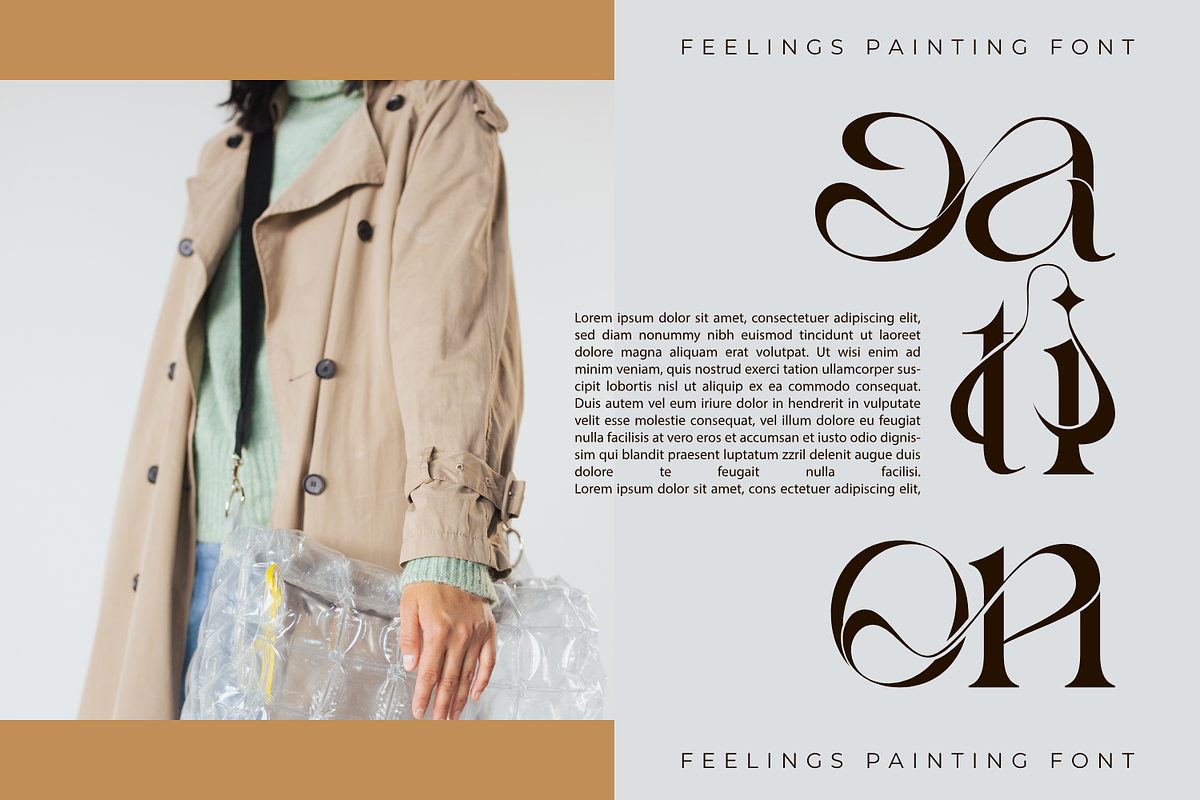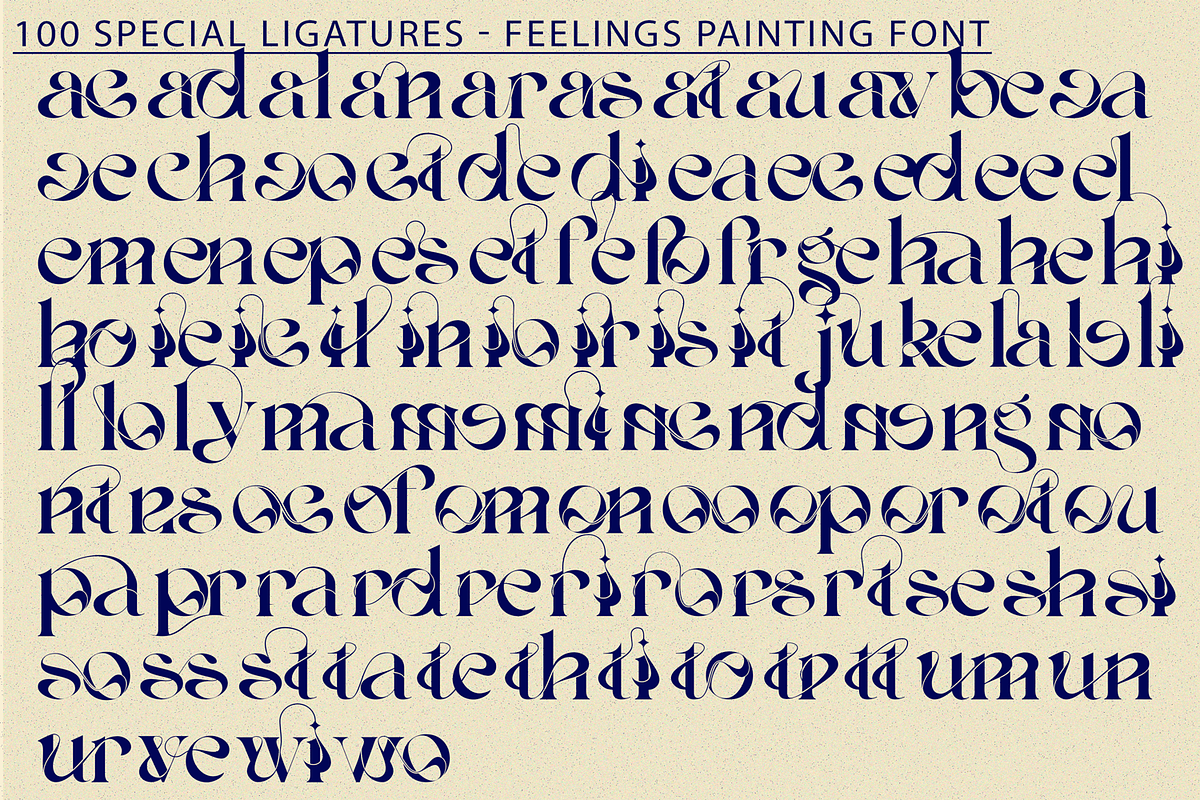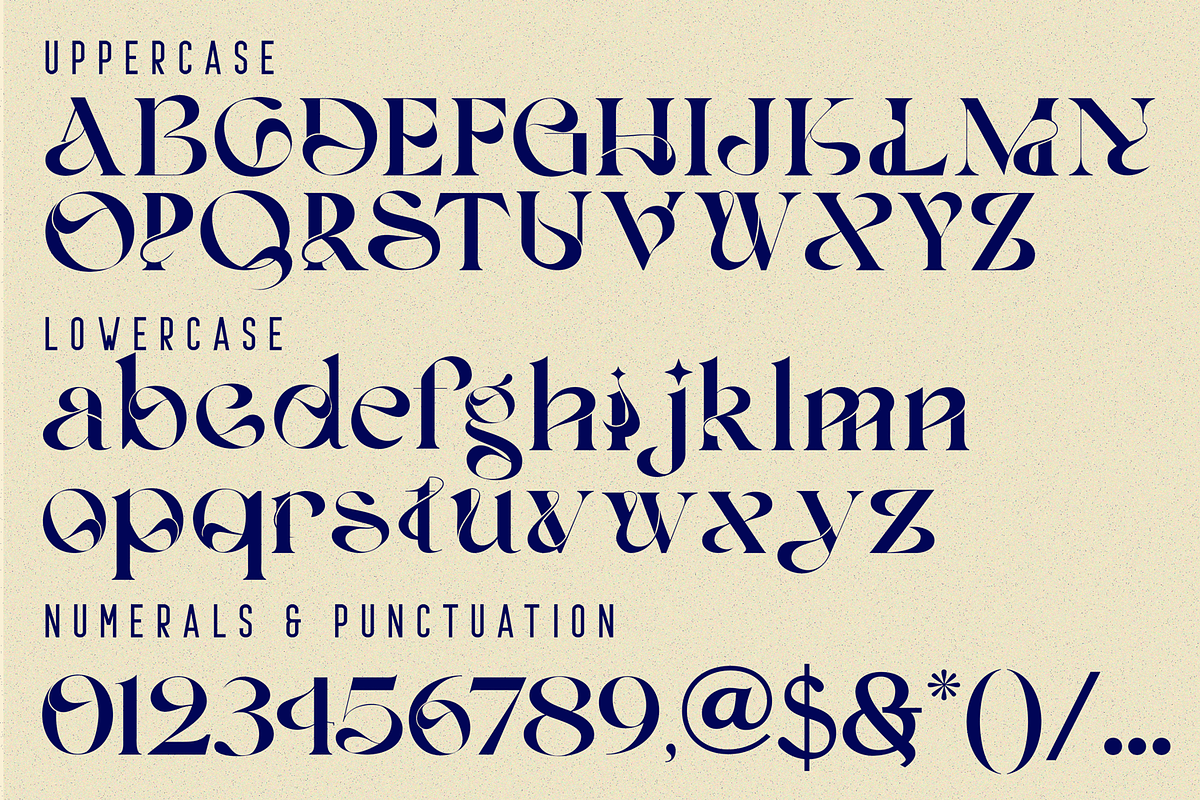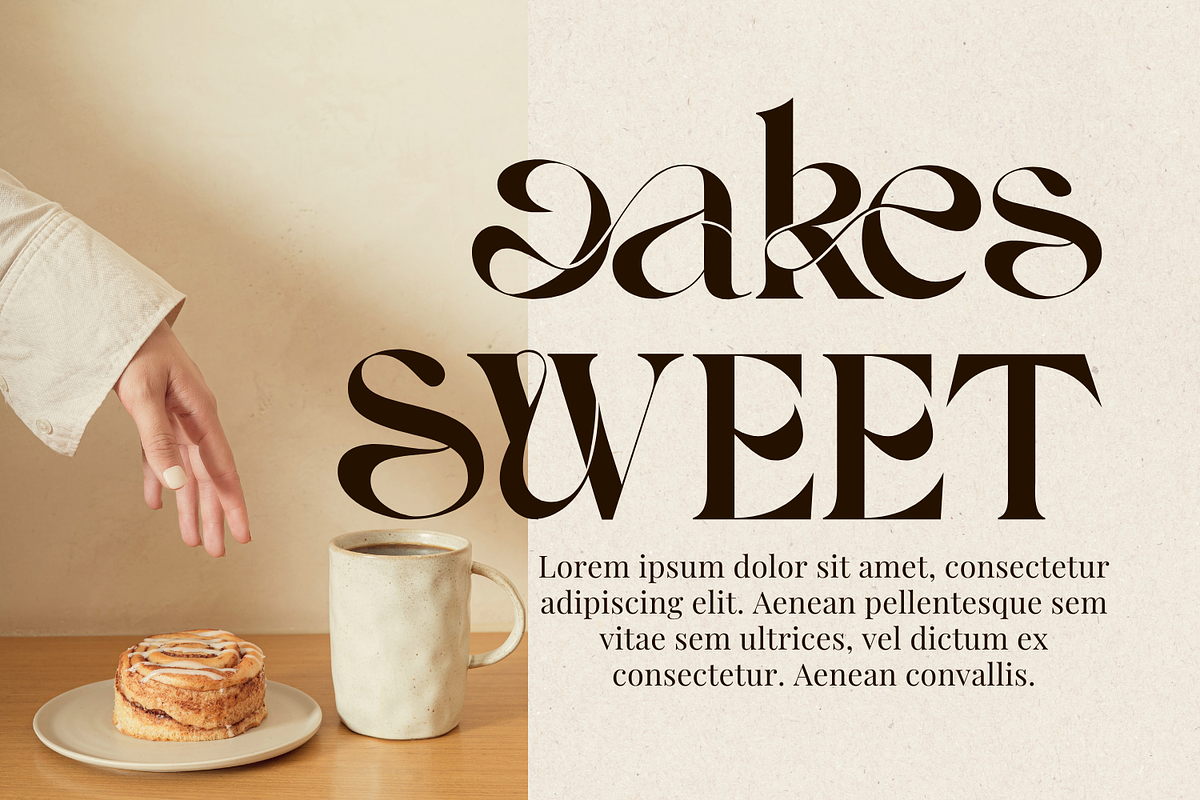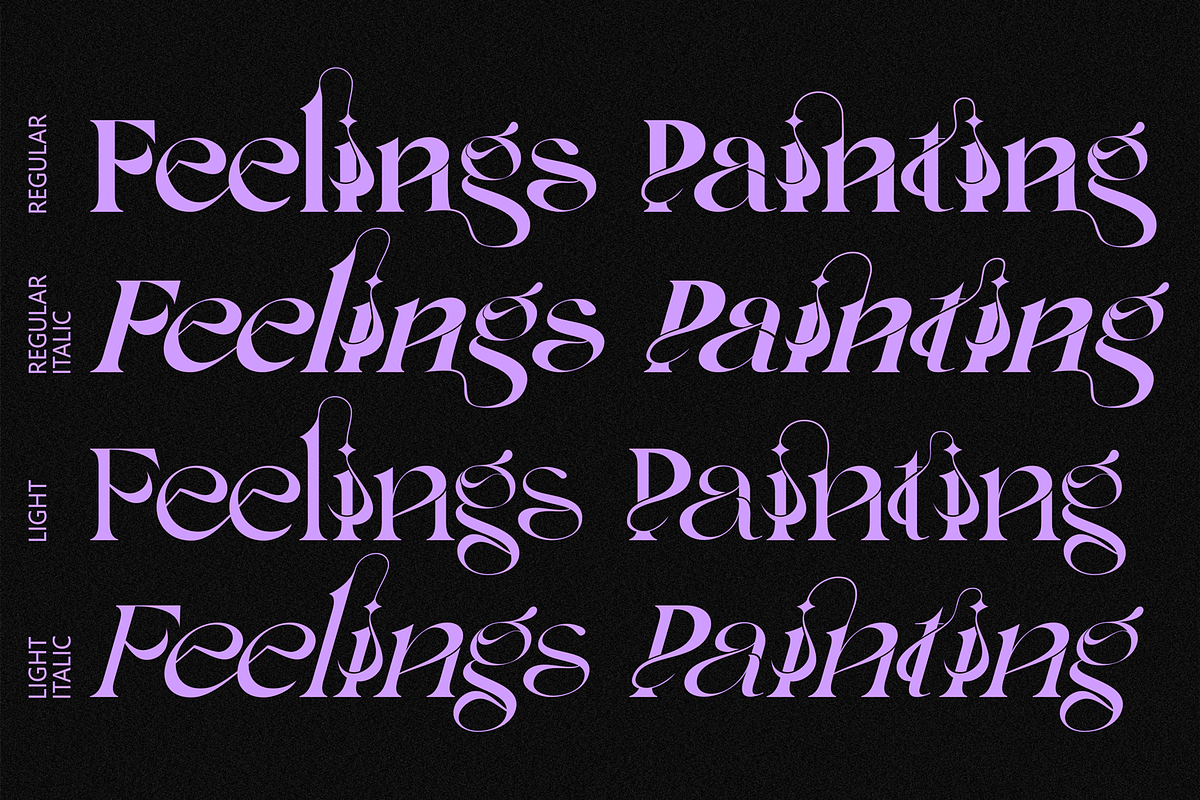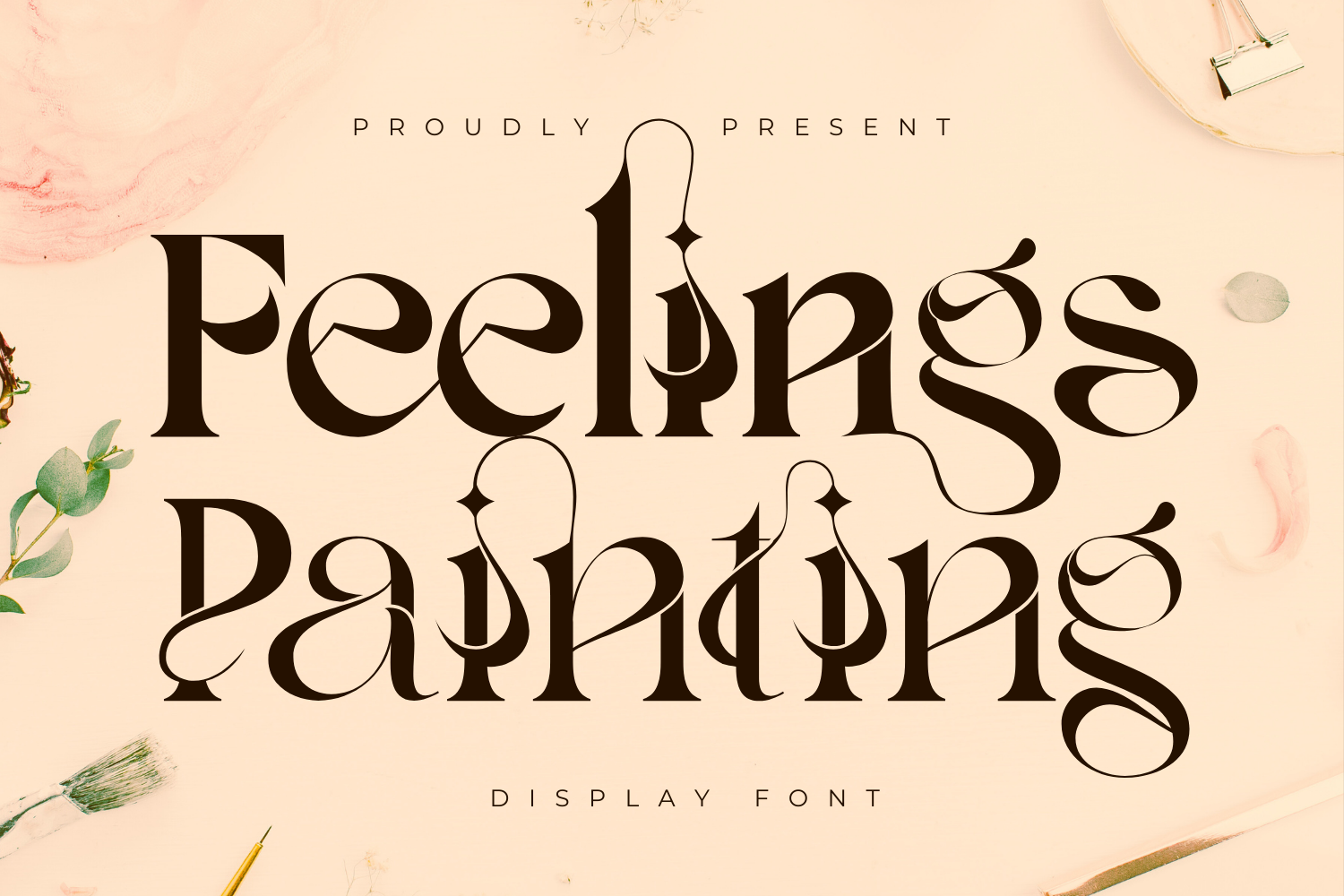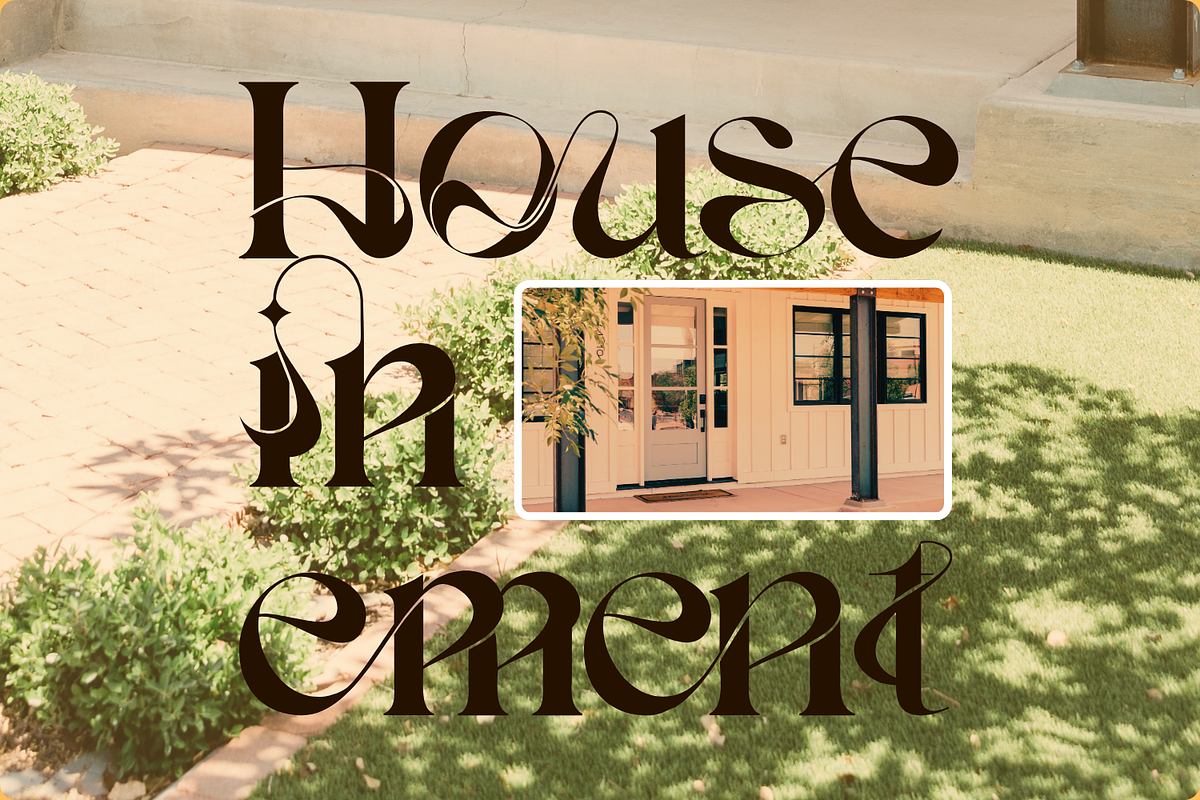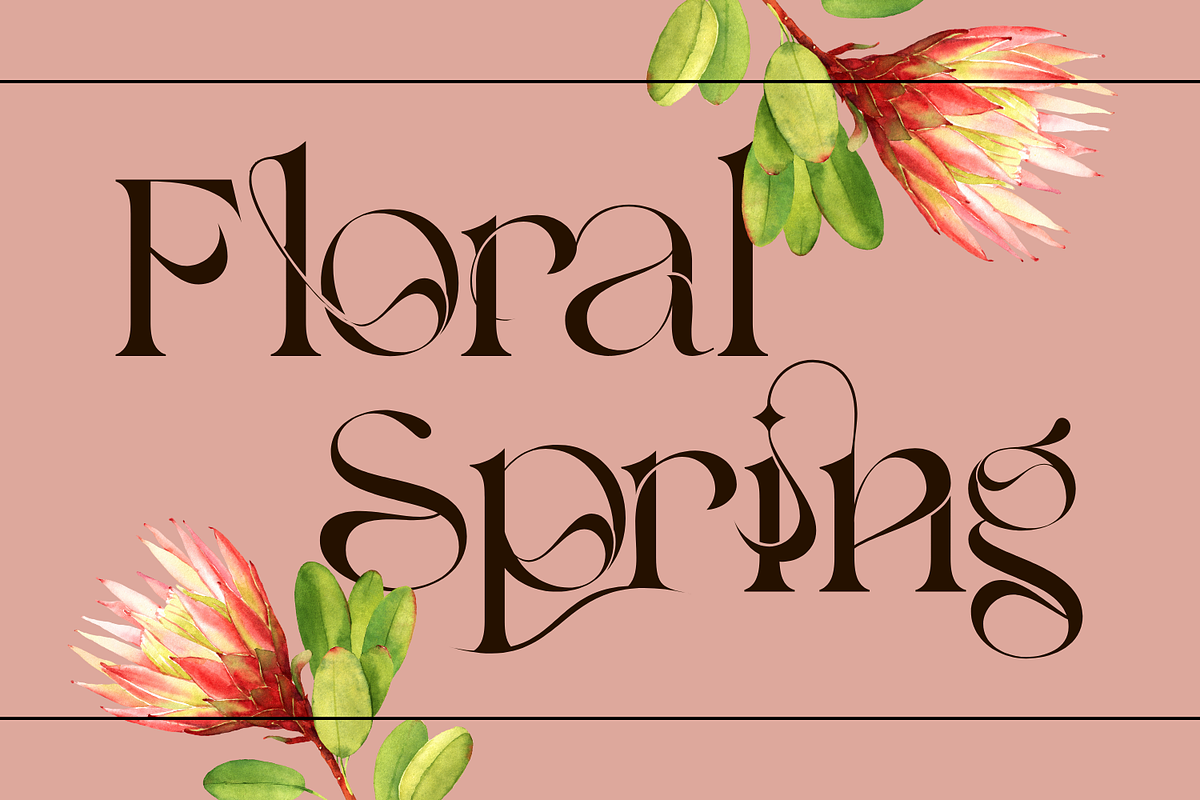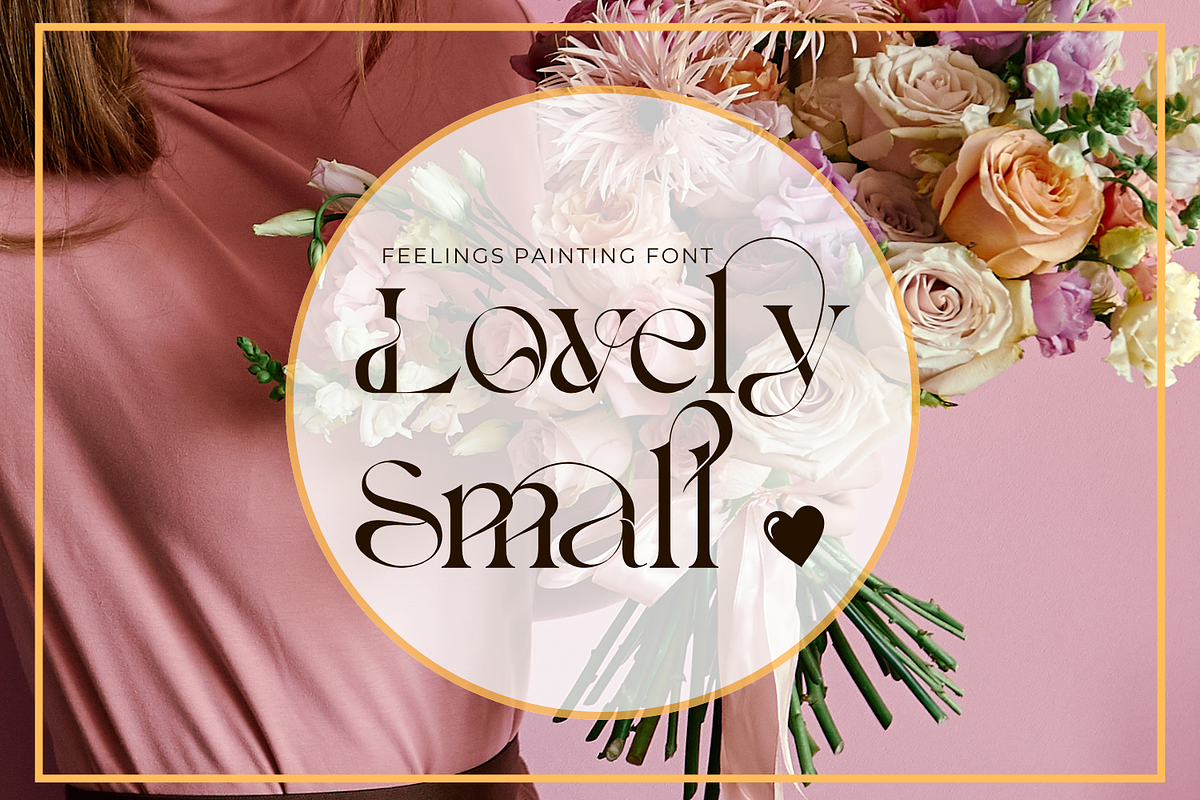
Feelings Painting | Ligature Font
Feelings Painting | Ligature Serif Font – A Modern Ligature Serif Font. A sophisticated and modern ligature serif font designed to bring elegance and uniqueness to your creative projects. With a perfect blend of classic and contemporary aesthetics, this typeface enhances readability while adding a distinctive touch to any design.
This font includes both uppercase and lowercase letters, around 100 special ligatures, numerals, punctuation, and accented characters, making it highly versatile for various design needs. Whether you’re working on branding, editorial design, packaging, or web typography, Feelings Painting will elevate your work with its refined details and stylish ligatures. Bring a touch of modern elegance to your designs with Feelings Painting!
Feelings Painting was built with OpenType features and includes 100 ligatures, alternate, numbers, punctuation, and it also supports other languages.
ac ad al an ar as at au av be ca ce ch co ct de di ea ec ed ee el em en ep er es et fe fo fr ge ha he hi ho ie ic il in io ir is it ju ke la le li ll lo ly ma me mi nc nd ne ng no nt ns oc of om on oo op or ot ou ow pa pr ra rd re ri ro rs rt se sh si so ss st ta te th ti to tr tt um un ur ve wi wo
- Special Ligatures